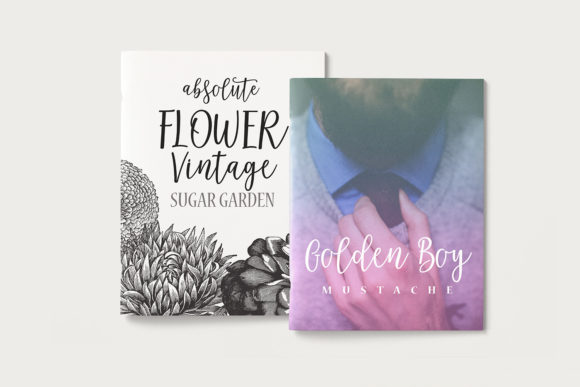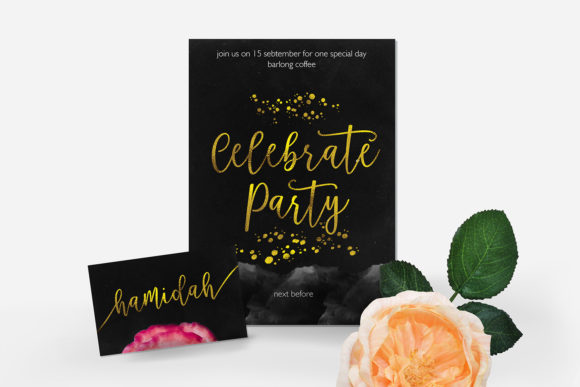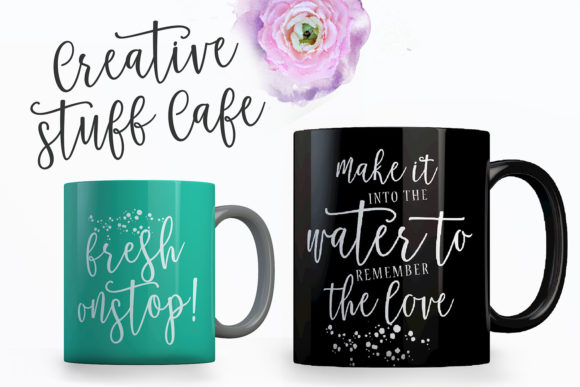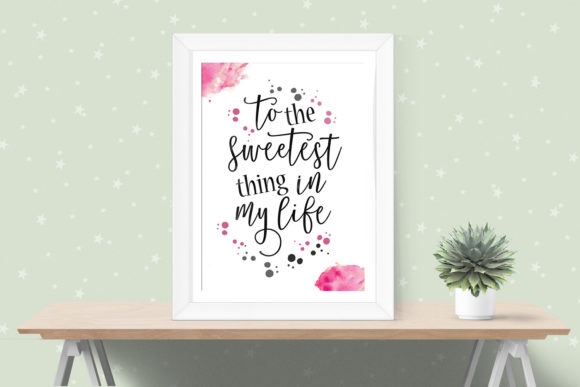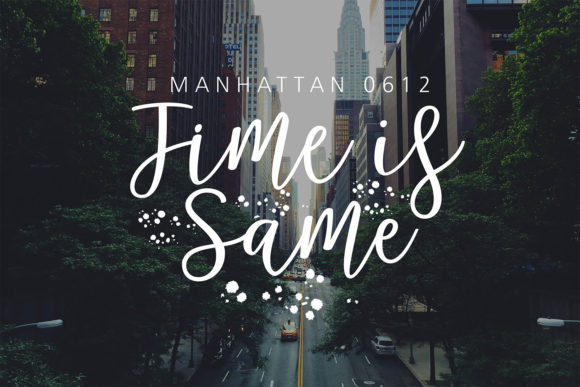
Introduction to Magenta Script Font
Magenta is an elegant script font with modern thick and thin connections and an original style.
This font is designed with a cursive feel and soft style This typeface feels fun and feminine, and it will beautifully highlight your most creative ideas.